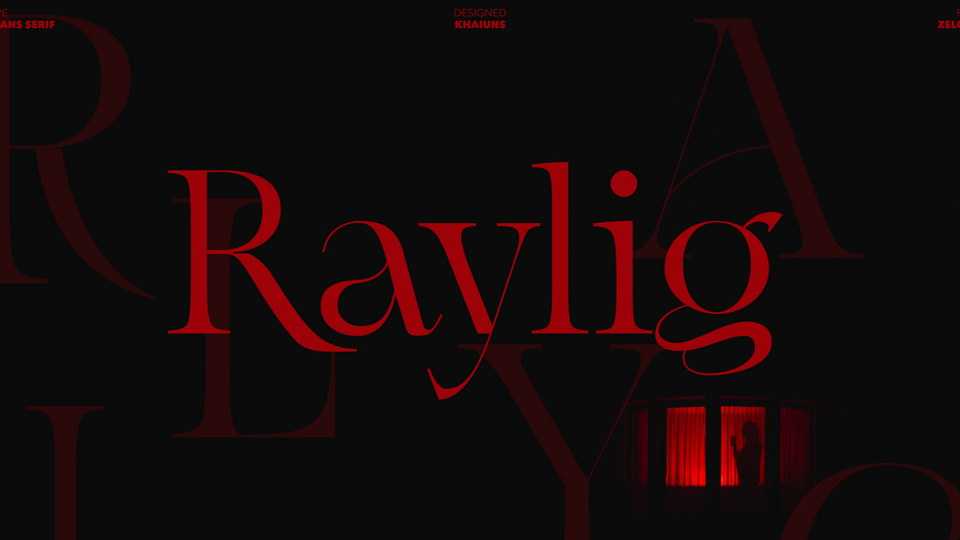
Download Raylig font, a graceful serif but full of energy. Raylig is a desire to present the perfect font for your wide variety of projects, branding, also suitable for typographic layout for magazines, posters, books, etc.